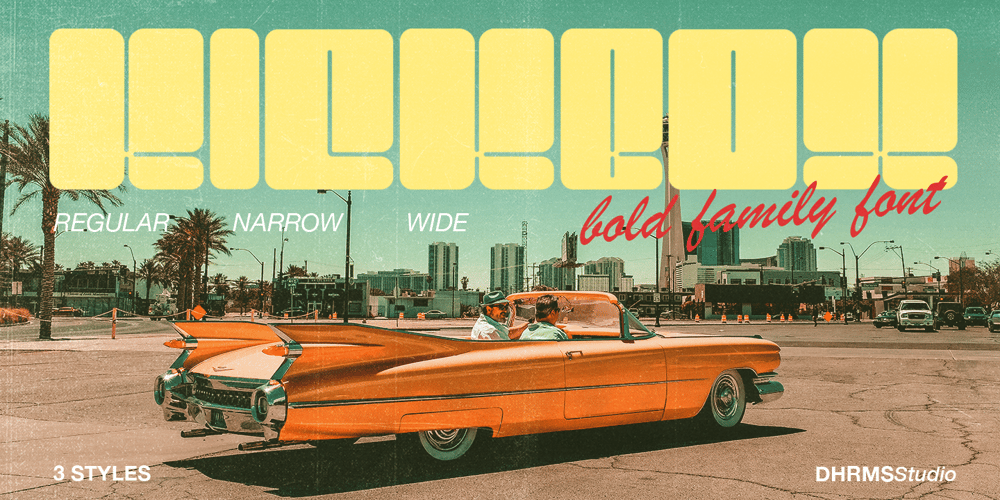
Kickbox Font Family was designed by Ahmad Jamaludin and published by Ahmad Jamaludin. Kickbox contains 3 styles and family package options. Introducing KICKBOX Fonts – Unleash the Power of Nostalgia and Captivate Pop Culture, Lifestyle, and Music and Film BrandingLooking to infuse your brand with a burst of retro charm and a dash of pop culture? Say hello to our KICKBOX Fonts! Designed with 3 styles: Narrow, Regular, Wide to make your brand stand out in the realms of pop culture, lifestyle, music, and film branding. These fonts are an absolute game-changer.KICKBOX transports you to the golden era of the past, evoking a sense of nostalgia that resonates with pop culture enthusiasts. Seamlessly blending boldness and authenticity, they captivate the hearts of your audience, adding a unique and irresistible touch to your brand identity.KICKBOX has 3 widths on each type: Narrow – Regular – Wide so can be perfect for any retro project like logotype, branding, title, packaging, and many moreFeatures: Kickbox Main File Has 3 Variable: Narrow – Regular – Wide Instructions (Access special characters, even in Cricut Design) Unique Letterforms Works on PC & Mac Simple Installations Accessible in Adobe Illustrator, Adobe Photoshop, Microsoft Word even work on Canva! PUA Encoded Characters Fully accessible without additional design software. Embrace the captivating allure of our KICKBOX today and unleash a world of endless possibilities!Enjoy Designing!Dharmas Studio